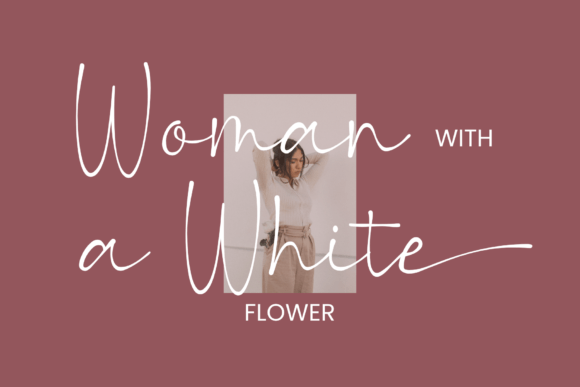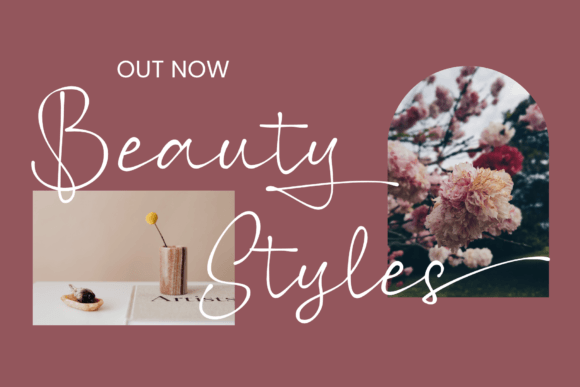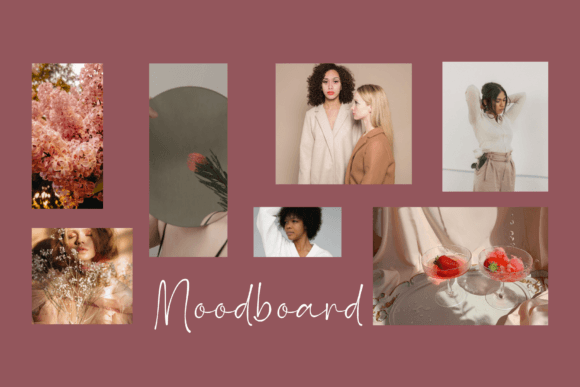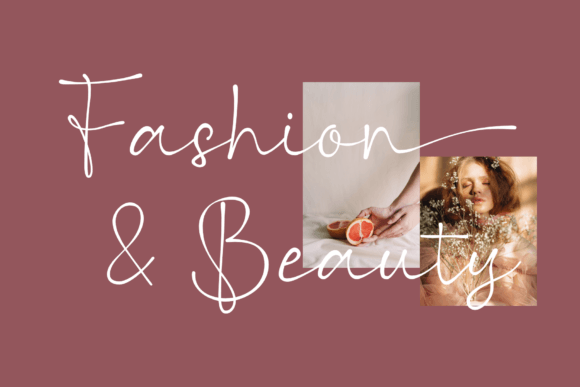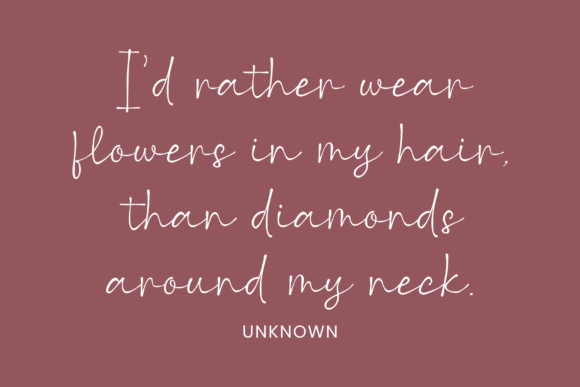
About Allegedly Font
“Allegedly” is a lovely handwritten script font known for its natural writing style and the touch of class it adds to your designs. This font is versatile and suitable for a wide range of design applications, making it a valuable asset for various creative projects.
The standout qualities of “Allegedly” include its naturalness and classiness. Its script design exudes a sense of authenticity and elegance, making it a great choice for projects that require a sophisticated and personalized touch.
Imagine using “Allegedly” to create branding materials that reflect a genuine and elegant image for your business. Picture incorporating this font into photography watermarks, invitations, quotes, and advertisements to give them a timeless and refined appearance. “Allegedly” can also elevate your product designs, labels, and any other creative endeavors that need a touch of class and authenticity.
In summary, “Allegedly” is more than just a font; it’s a design resource that brings naturalness and class to your creative work. Its handwritten script style makes it versatile for various design applications where an authentic and elegant look is desired. Embrace “Allegedly” as a font that enhances your designs and adds a sense of sophistication and timeless beauty, making them more genuine and refined.